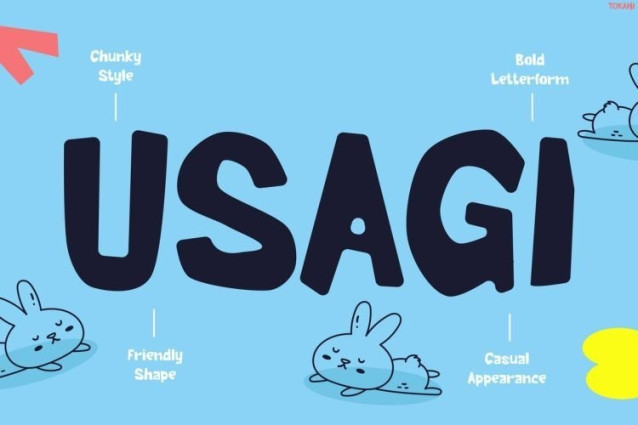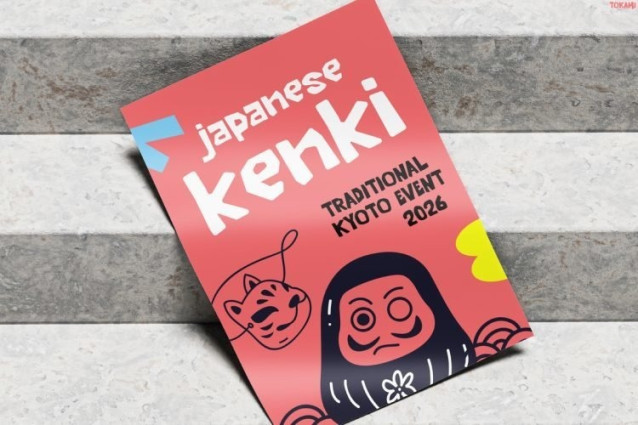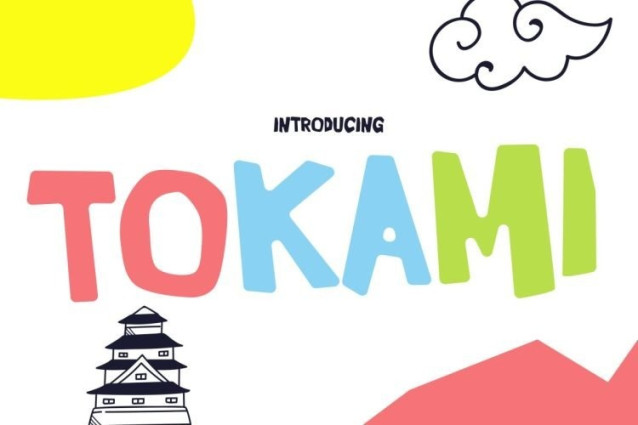
Tokami Font
Tokami Font is a playful display font inspired by the cheerful energy of Japanese culture, kawaii aesthetics, and children’s creativity. Not only does it feature bold handcrafted letterforms, but it also combines irregular shapes and organic curves that create a fun and friendly personality. Moreover, its unique character design instantly grabs attention, while its clean structure keeps every word easy to read. In addition, Tokami delivers a charming handmade feel that adds warmth and authenticity to any project. Furthermore, its playful appearance helps designs feel more engaging and approachable. As a result, posters, packaging, social media graphics, and event materials become more memorable. Meanwhile, the font balances creativity with readability, making it suitable for both personal and commercial use. Therefore, Tokami is an excellent choice for projects that need a joyful and energetic visual style.Tokami is designed for creative projects that celebrate fun, culture, and imagination. Whether you’re creating children’s products, Japanese-themed branding, food packaging, festival posters, educational materials, book covers, social media content, or event promotions, this font helps your message stand out. Likewise, its playful style creates an instant connection with younger audiences. Furthermore, its handcrafted appearance adds personality and charm. Consequently, every design feels more lively and engaging. At the same time, its bold display style ensures strong visibility across print and digital media.